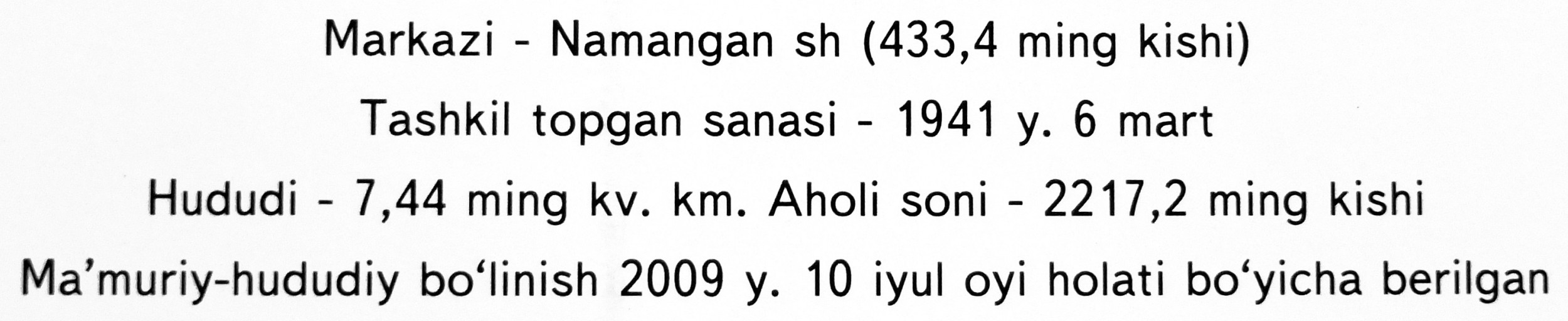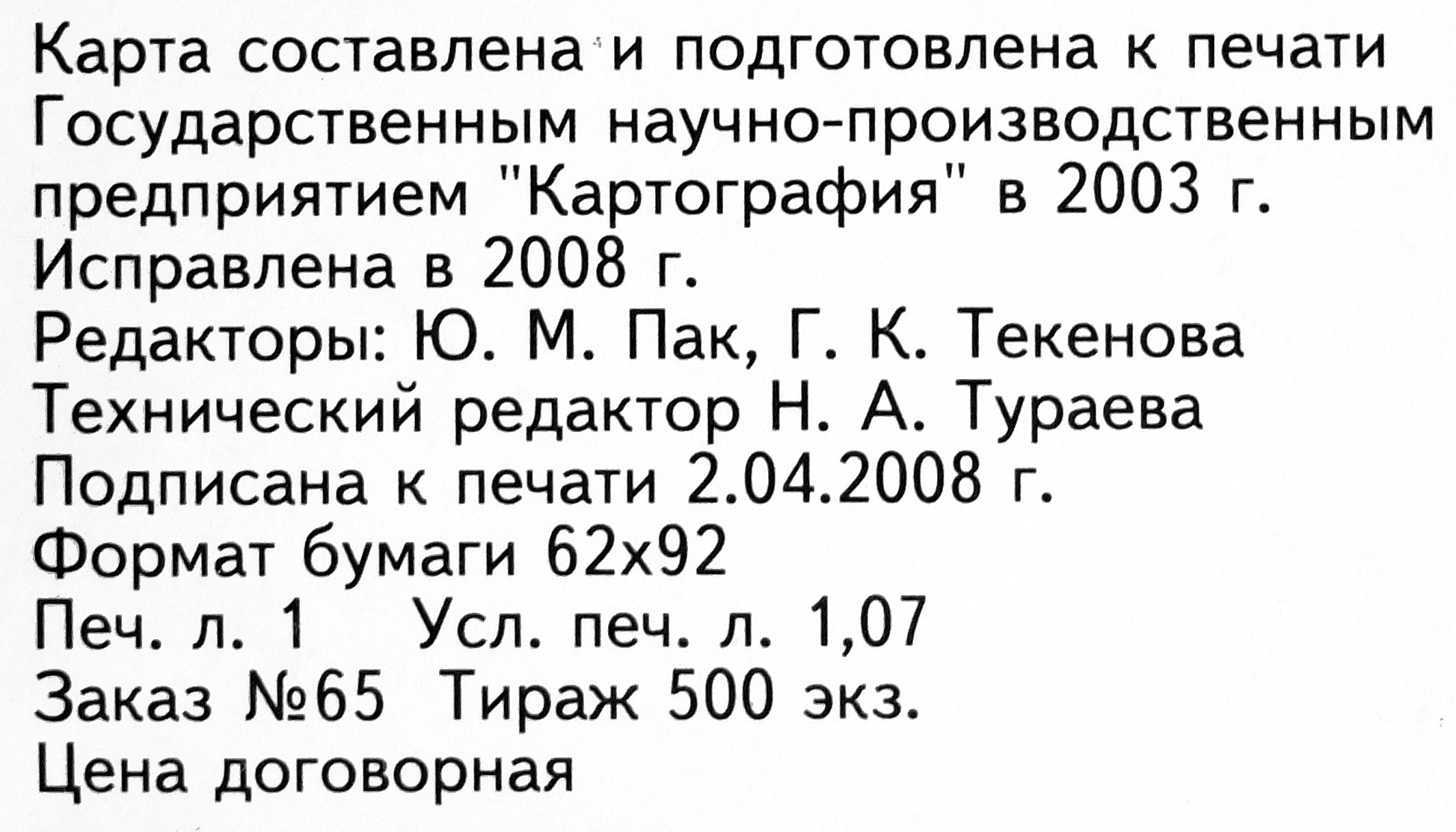
Intermicro Bukvarnaya Medium.
It has been obsoleted by Textbook New: https://www.paratype.ru/fonts/pt/textbook-new (you could tell the difference because Intermicro Bukvarnaya has slightly narrower 6, 7 and 9 with slightly wider space around them).